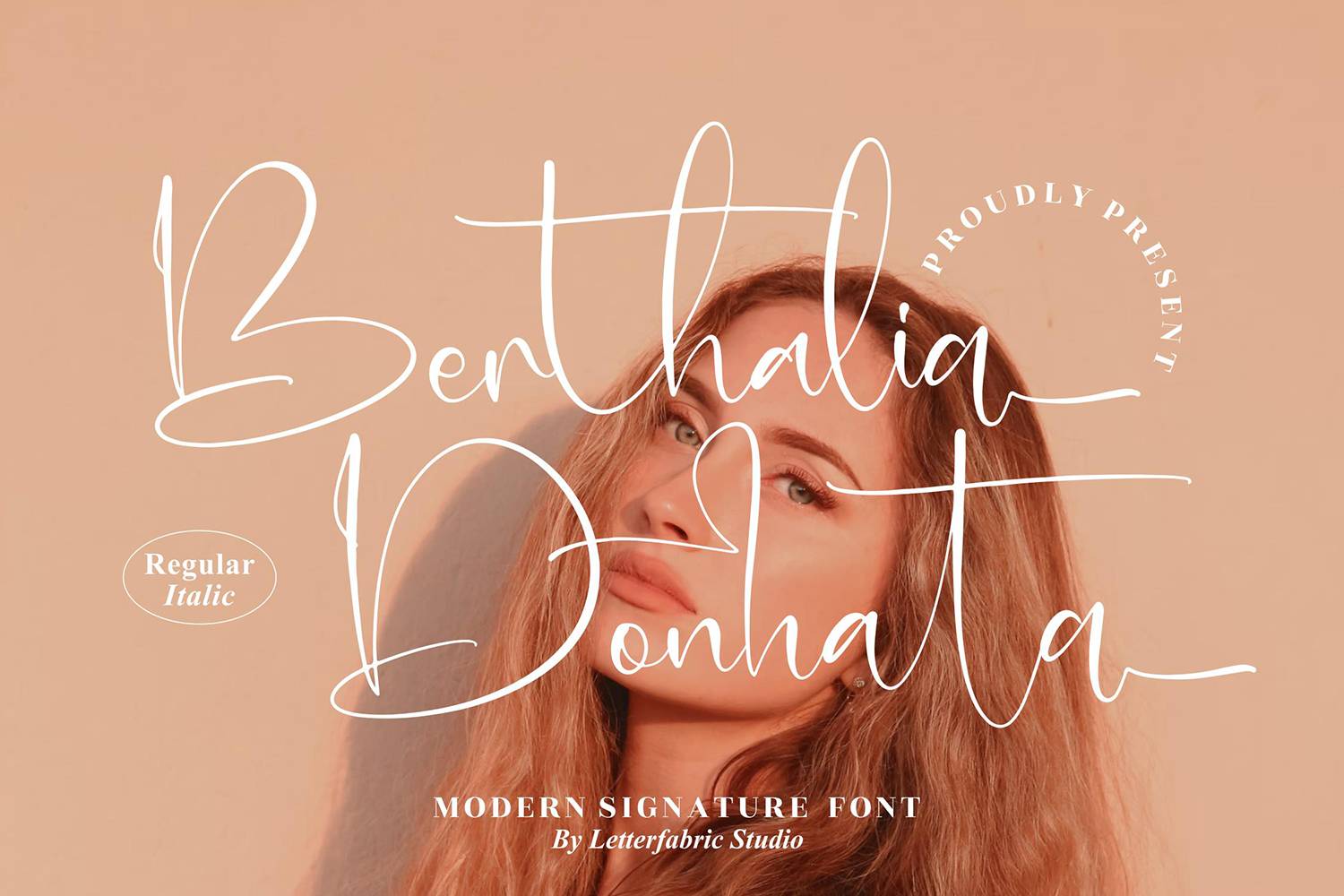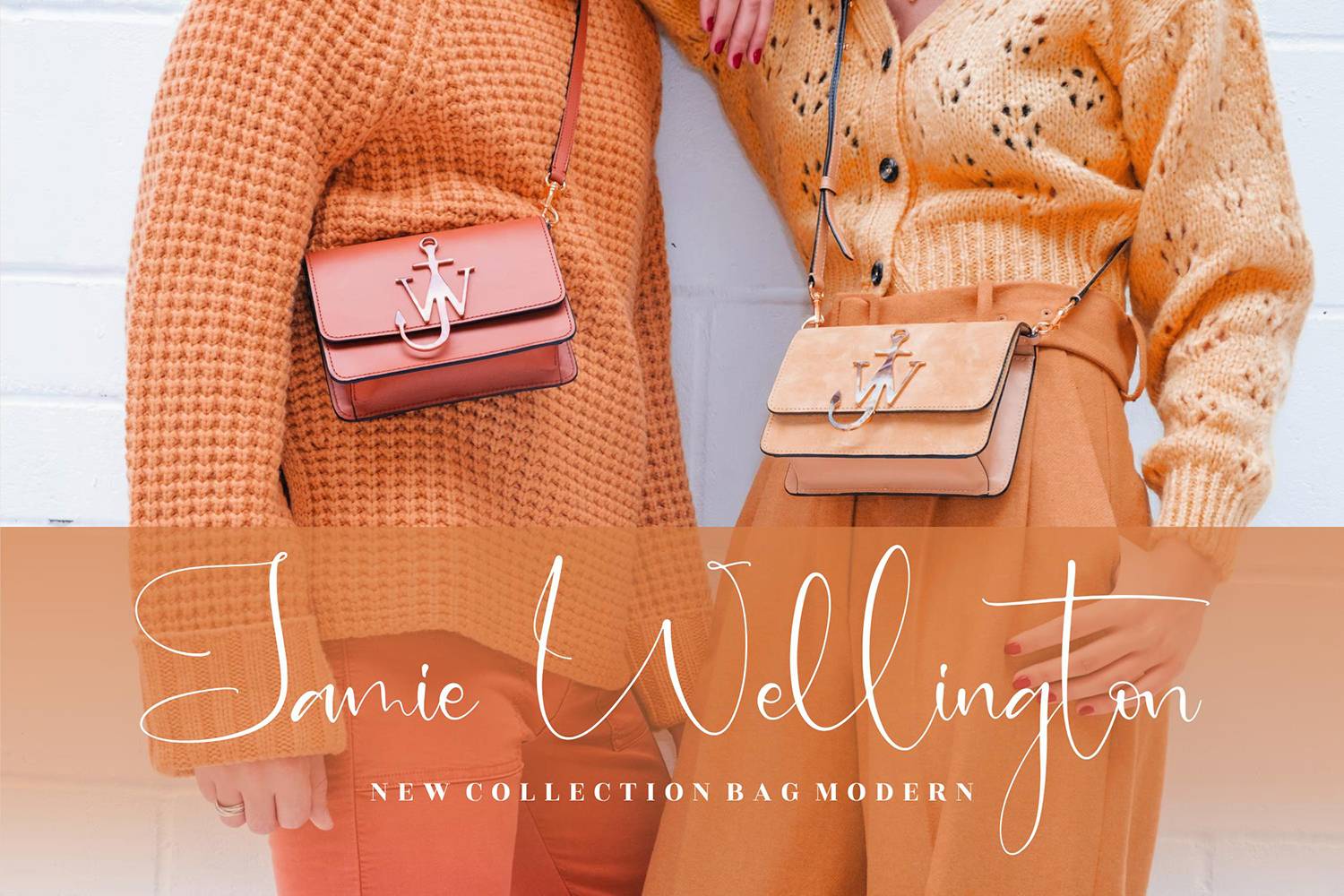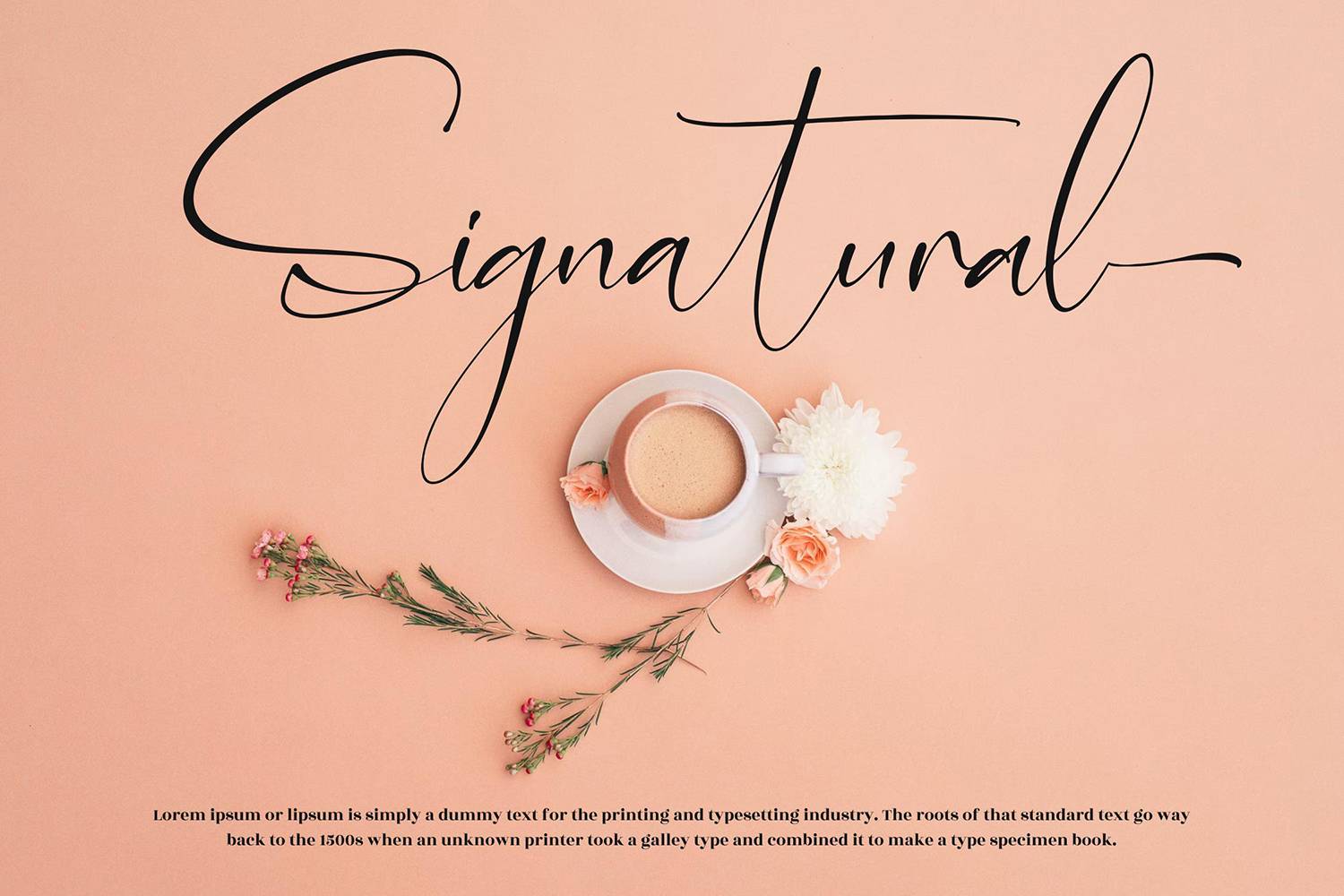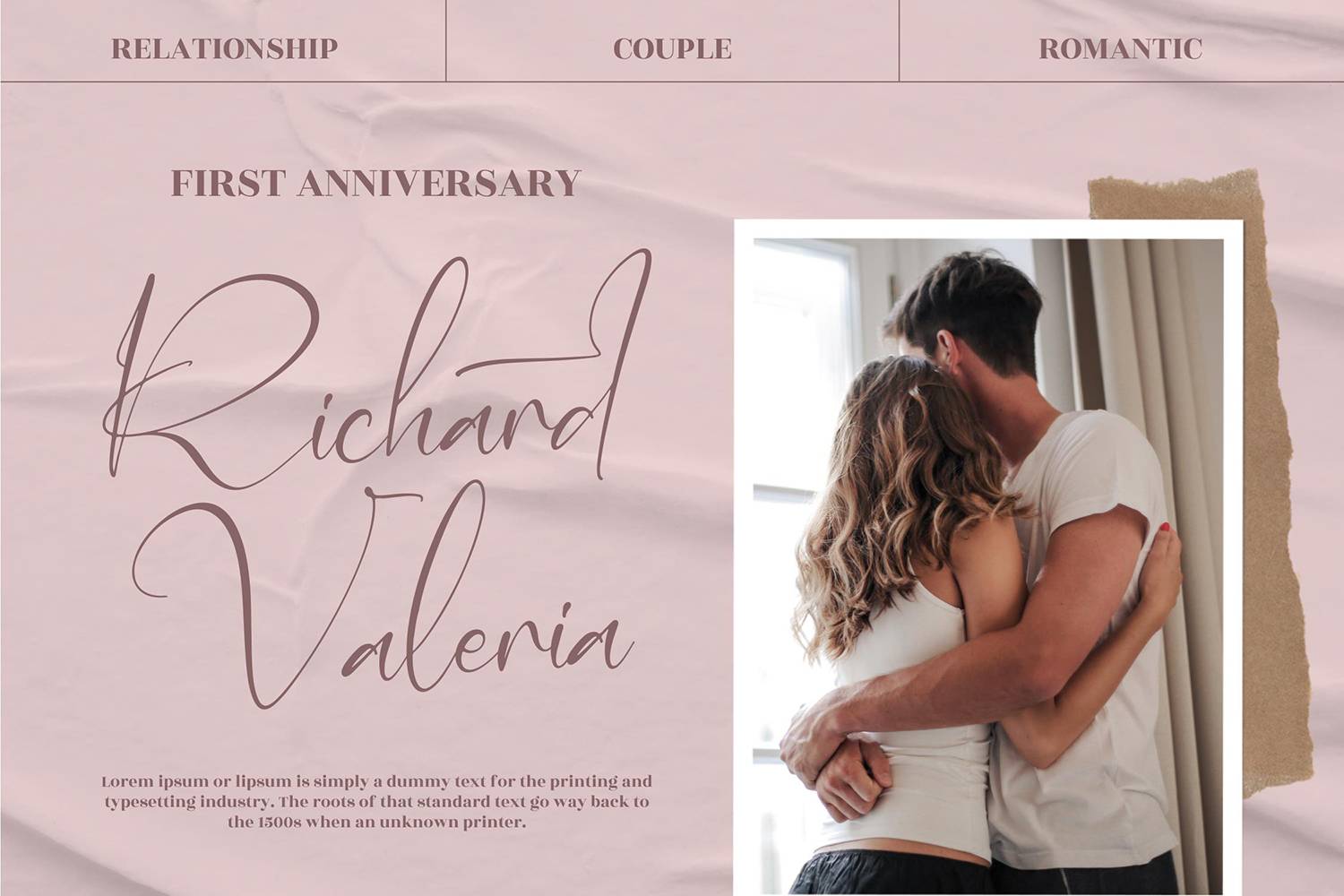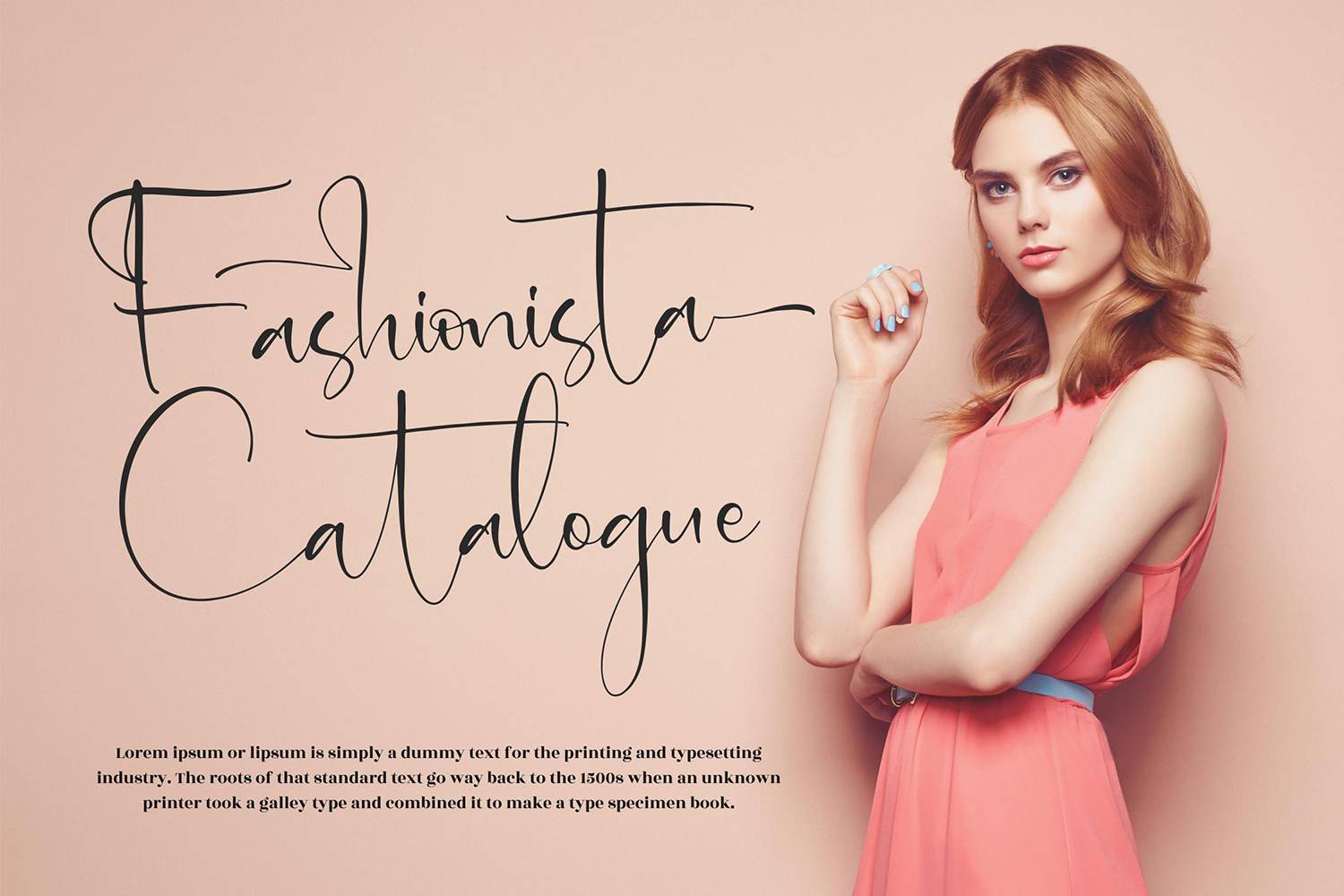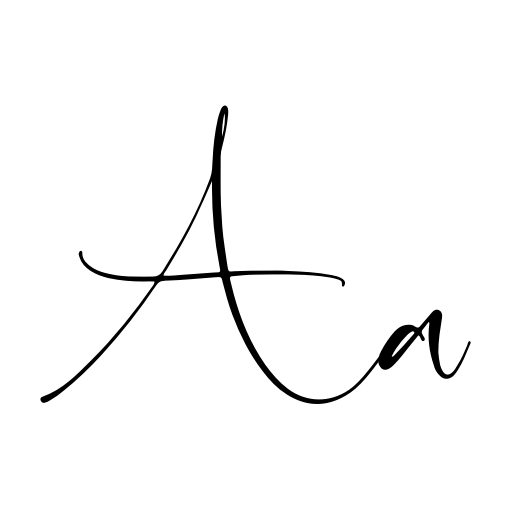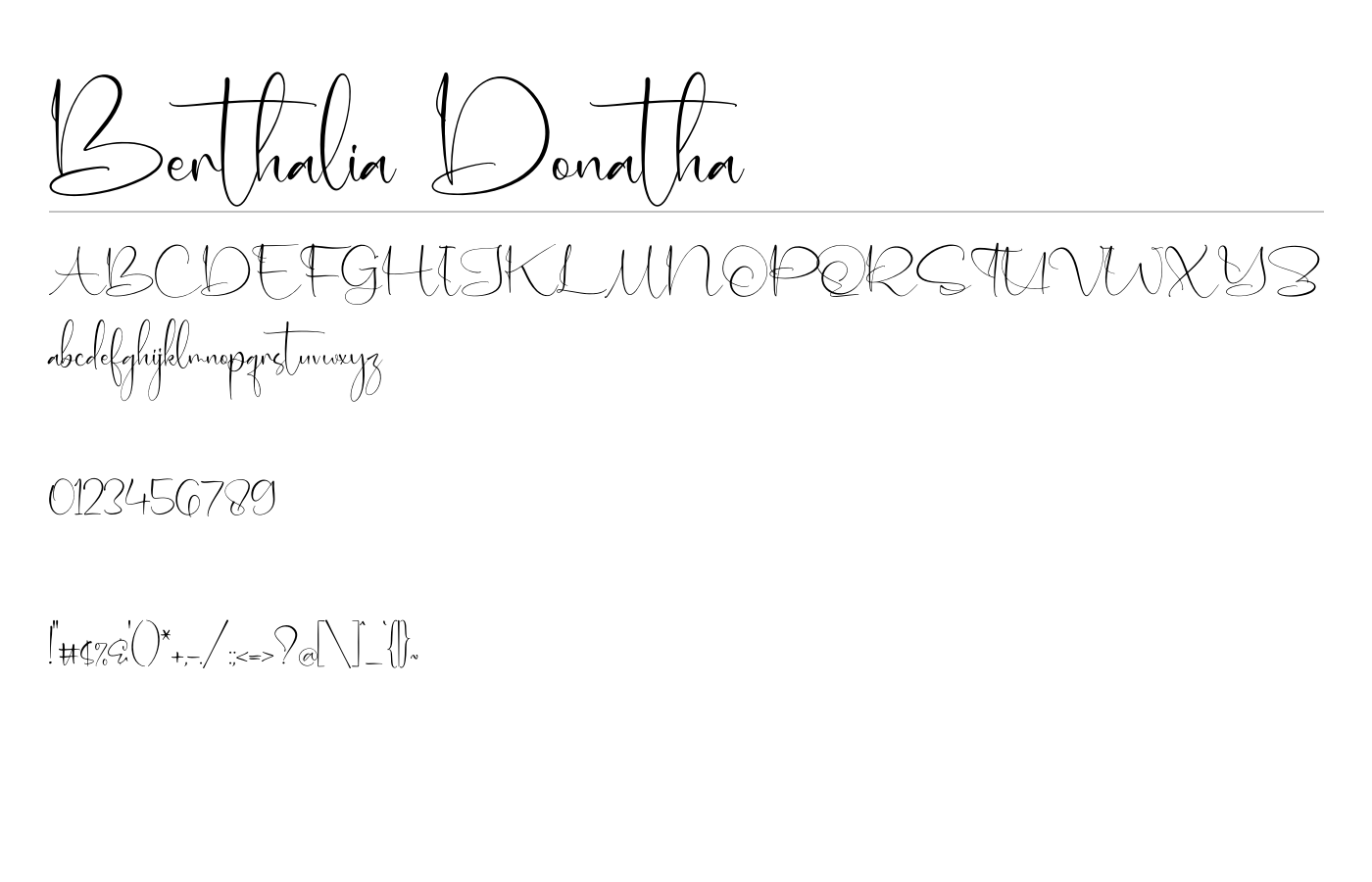
Berthalia Donatha is a delicate and elegant handwritten script font characterized by its fine, flowing lines and tall, narrow letterforms. With a high contrast between thin strokes and graceful curls, it exudes a sophisticated and personal touch, making it ideal for wedding invitations, branding, and projects that seek a refined, artistic feel. Its airy and expressive style works best in headlines or decorative text where a sense of charm and elegance is desired.
Berthalia Donatha Font
About Berthalia Donatha Font